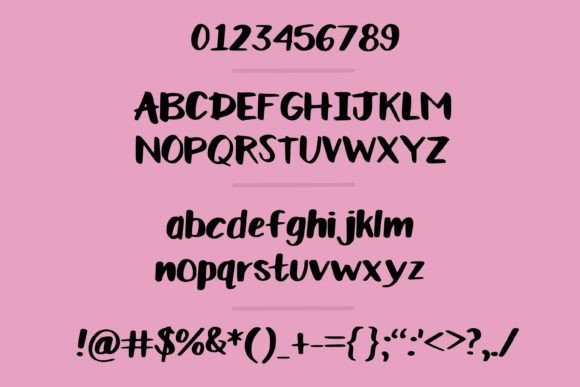
Lily Pop Font
About Lily Pop Font
“Lily Pop” beckons as a funky handwritten font, offering a refreshing twist for those seeking something a little different. Designed with whimsical child projects in mind, this unique font is poised to infuse personality and pizzazz into your creative endeavors. If you’re yearning for a typeface that breaks from convention and allows your creativity to run wild, Lily Pop might be the playful and distinctive choice you’re looking for.
The whimsical nature of Lily Pop makes it particularly well-suited for child-oriented projects. Whether you’re working on children’s books, playful branding, or any creative work targeted at a younger audience, the font’s funky and handwritten style adds a vibrant and joyful touch.
The distinctiveness of Lily Pop sets it apart, making it a bold choice for those who want to inject a sense of fun and creativity into their designs. Whether used for headlines, logos, or any other project, Lily Pop brings a unique flair that can capture attention and convey a light-hearted and energetic atmosphere.
The freedom and playfulness associated with Lily Pop make it an ideal choice for unleashing your creativity. This font encourages designers to break from traditional norms, experiment with unconventional styles, and bring a sense of whimsy to their projects. It’s a typeface that invites you to explore new possibilities and infuse your designs with a dose of unconventional charm.
In summary, Lily Pop is more than just a font; it’s a playful and funky design tool ready to breathe life into your whimsical child projects. Let Lily Pop be the choice that adds personality and pizzazz to your creative endeavors, allowing you to break free from the ordinary and embrace a style that’s as unique and vibrant as your imagination.